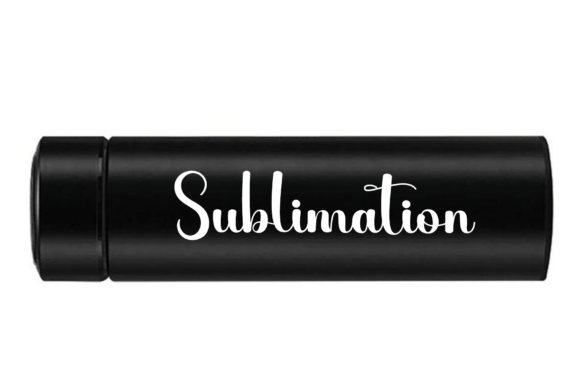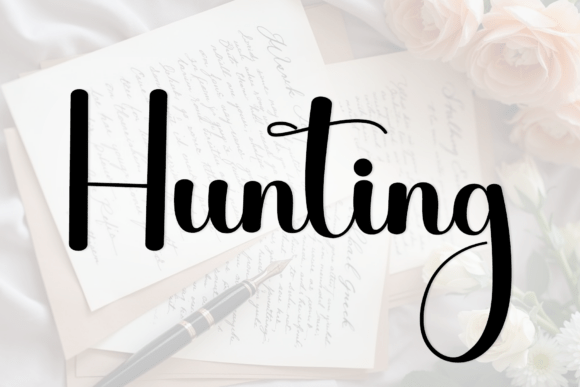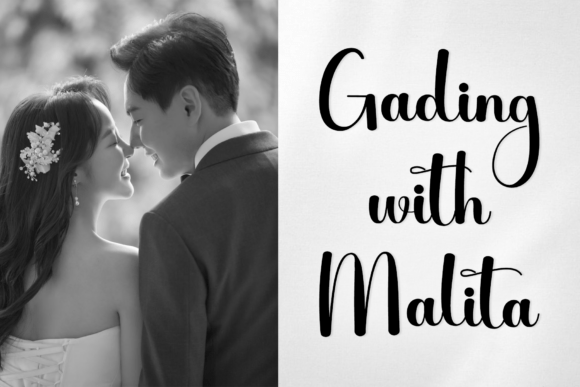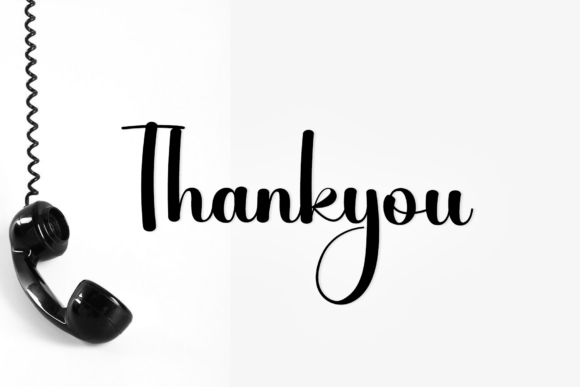
Discover the Elegant Charm of Alphabets Solitude Font
Have you ever been in the middle of a design project, and suddenly, you’re stuck on finding the perfect font? I recall a particularly frustrating experience while working on a wedding stationery set for a client. The design was almost complete, but the font just wasn’t right. It was either too formal, too playful, or just didn’t capture the essence of the couple’s special day. That’s when I stumbled upon Alphabets Solitude, a gorgeous contemporary script font that instantly elevated my design to a new level of elegance and sophistication.
A Personal Review: What I Love About Alphabets Solitude
Alphabets Solitude is more than just a font; it’s an experience. Here are a few things that I absolutely love about it:
- ✨ Fluid, Rhythmic Grace: The extra-tall vertical loops and smooth, winding capital loops give it a beautiful, flowing feel that’s perfect for creating elegant and sophisticated designs.
- ✅ Uniform Line Weight: The rich, consistent line weight gives Alphabets Solitude a modern, casual marker feel that works wonderfully for a variety of design applications.
- 💕 Delicate Terminal Curls: The subtle curls at the ends of the letters add a touch of whimsy and romance, making it ideal for wedding stationery, personalized branding, and high-end cosmetic packaging.
While Alphabets Solitude is an exceptional font, there are a few minor quirks to be aware of:
- ⚠️ Glyph Overload: With so many beautiful glyphs and stylistic alternates, it can be overwhelming to navigate, especially for beginners.
- 🤔 Limited Use in Body Text: Due to its elegant and cursive nature, Alphabets Solitude might not be the best choice for lengthy body text. It’s perfect for headings, titles, and short paragraphs, though!
Alphabets Solitude was crafted with the intention of capturing the intimate and meditative beauty of handwritten letters. The designer aimed to create a typeface that feels both luxurious and approachable, perfect for designs that require a touch of elegance and romance. Inspired by the flowing scripts of the past, Alphabets Solitude brings a sense of timelessness and sophistication to modern design.
| What makes Alphabets Solitude unique? | Its extra-tall vertical loops, smooth capital loops, and delicate terminal curls give it a distinctive and elegant appearance. |
| Is Alphabets Solitude suitable for body text? | While it’s primarily designed for headings and titles, it can be used for short paragraphs. However, its cursive nature might make longer texts harder to read. |
| Does Alphabets Solitude support OpenType features? | Yes, it supports various OpenType features, including ligatures, stylistic alternates, and glyphs, which can enhance your design. |
Alphabets Solitude is a versatile and beautiful font that can elevate your designs to new heights. Whether you’re working on wedding stationery, personal branding, or high-end packaging, this elegant script font is sure to leave a lasting impression. Let your words flow with the exquisite, heartfelt presence of Alphabets Solitude.